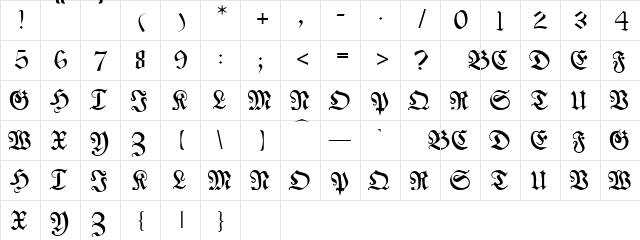
BarbourCapsSSK Regular
Design Context for BarbourCapsSSK Typeface
BarbourCapsSSK takes a measured approach to typography — its balanced proportions and neutral character make it a reliable workhorse for both digital and print work.